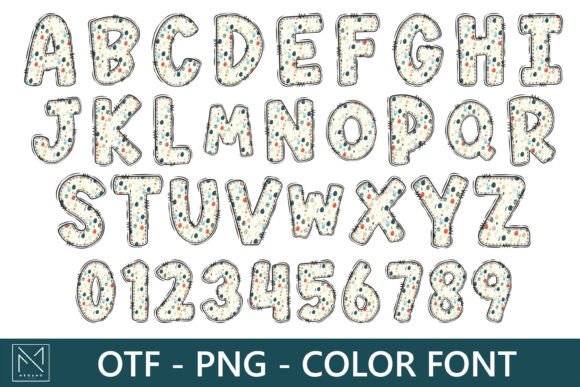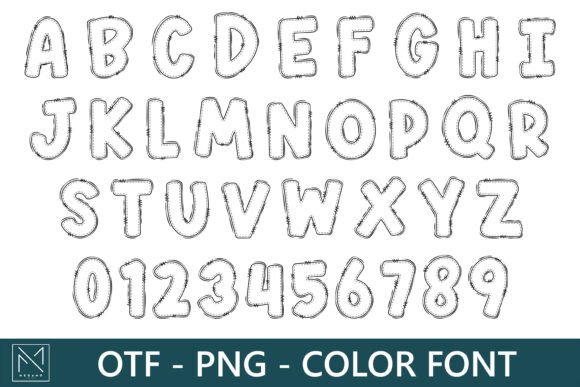
Introducing the Captivating Easter Alphabet Font Collection
Are you looking for a way to elevate your Easter holiday designs and crafts? Look no further than the Easter Alphabet Font Collection! This delightful collection features distinctive font styles and irresistibly cute illustrated icons, including bunnies, Easter eggs, carrots, and little chicks. With its vibrant colors and patterns, this collection is sure to bring a fun and unique twist to any creative project.
Distinctive Font Styles and Icons
The Easter Alphabet Font Collection boasts a range of font styles that are perfect for adding a touch of Easter magic to your designs. From playful and whimsical to elegant and sophisticated, there’s a font to suit every creative vision. But that’s not all – this collection also includes a range of illustrated icons that will add an extra layer of festivity to your designs. Imagine adding adorable bunnies, colorful Easter eggs, crunchy carrots, and cute little chicks to your projects – it’s sure to delight both kids and adults alike!
Vibrant Colors and Patterns
Perfect for Craft Projects
Ideal for a Range of Creative Projects
So, what can you create with the Easter Alphabet Font Collection? The answer is – anything you like! Here are just a few ideas to get you started:
- Custom Easter greeting cards and gift tags
- Personalized holiday decorations, such as banners and garlands
- Unique shirts, mugs, and home decor items
- DIY Easter crafts, such as paper flowers and wreaths
- Digital Easter eggs and gift baskets
Why Choose the Easter Alphabet Font Collection?
So, why should you choose the Easter Alphabet Font Collection for your next project? Here are just a few reasons:
- Unique and distinctive font styles and icons that will make your designs stand out
- Vibrant colors and patterns that evoke the joy and celebration of Easter
- Perfect for a range of creative projects, from craft projects to digital designs
In conclusion, the Easter Alphabet Font Collection is a game-changer for designers and crafters looking to elevate their Easter holiday designs and crafts. With its distinctive font styles, irresistibly cute icons, and vibrant colors and patterns, this collection is sure to bring a fun and unique twist to any creative project. Whether you’re designing for print or digital, this collection has everything you need to create professional-looking designs that will delight kids and adults alike. So why wait? Download the Easter Alphabet Font Collection today and start creating your own Easter magic!